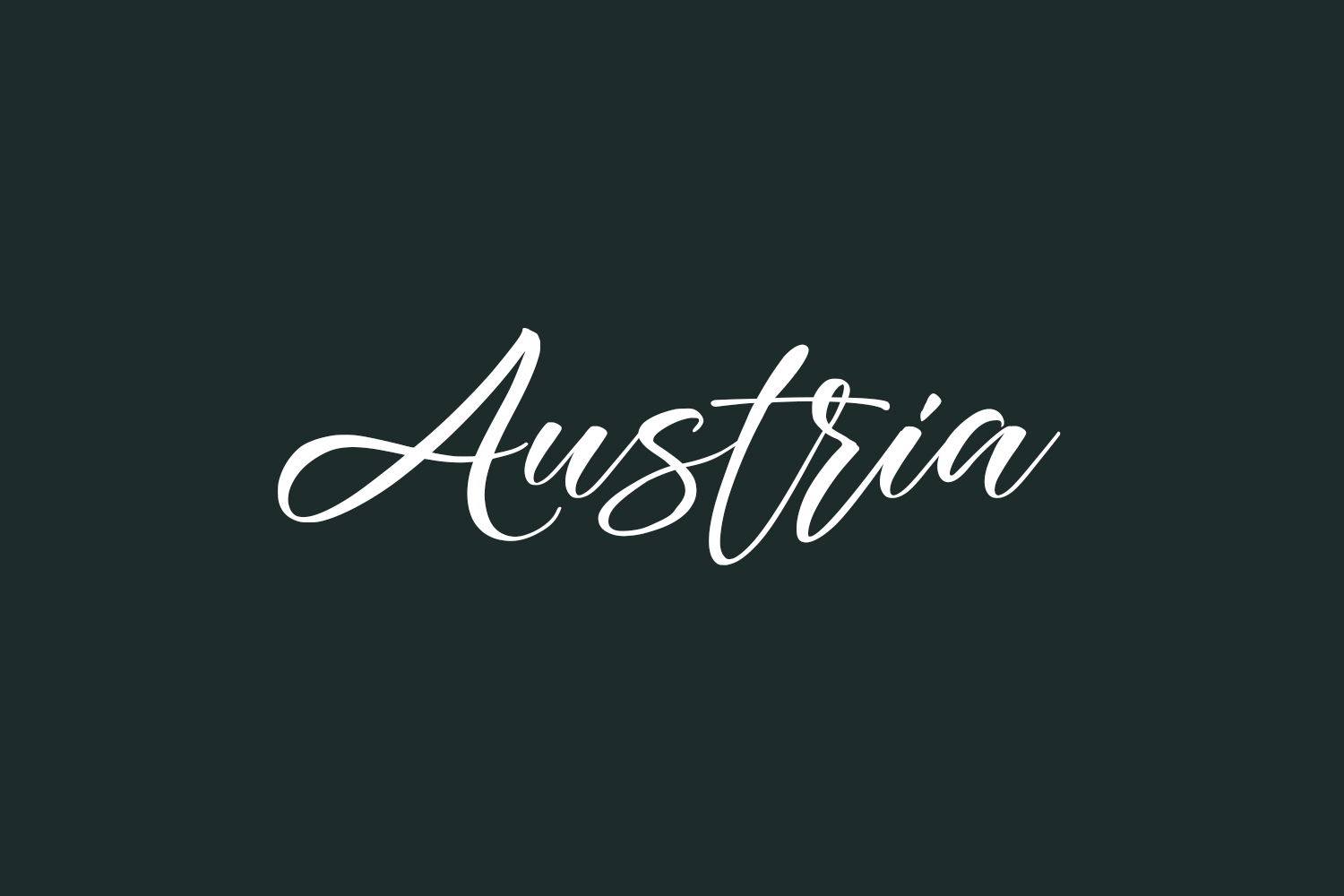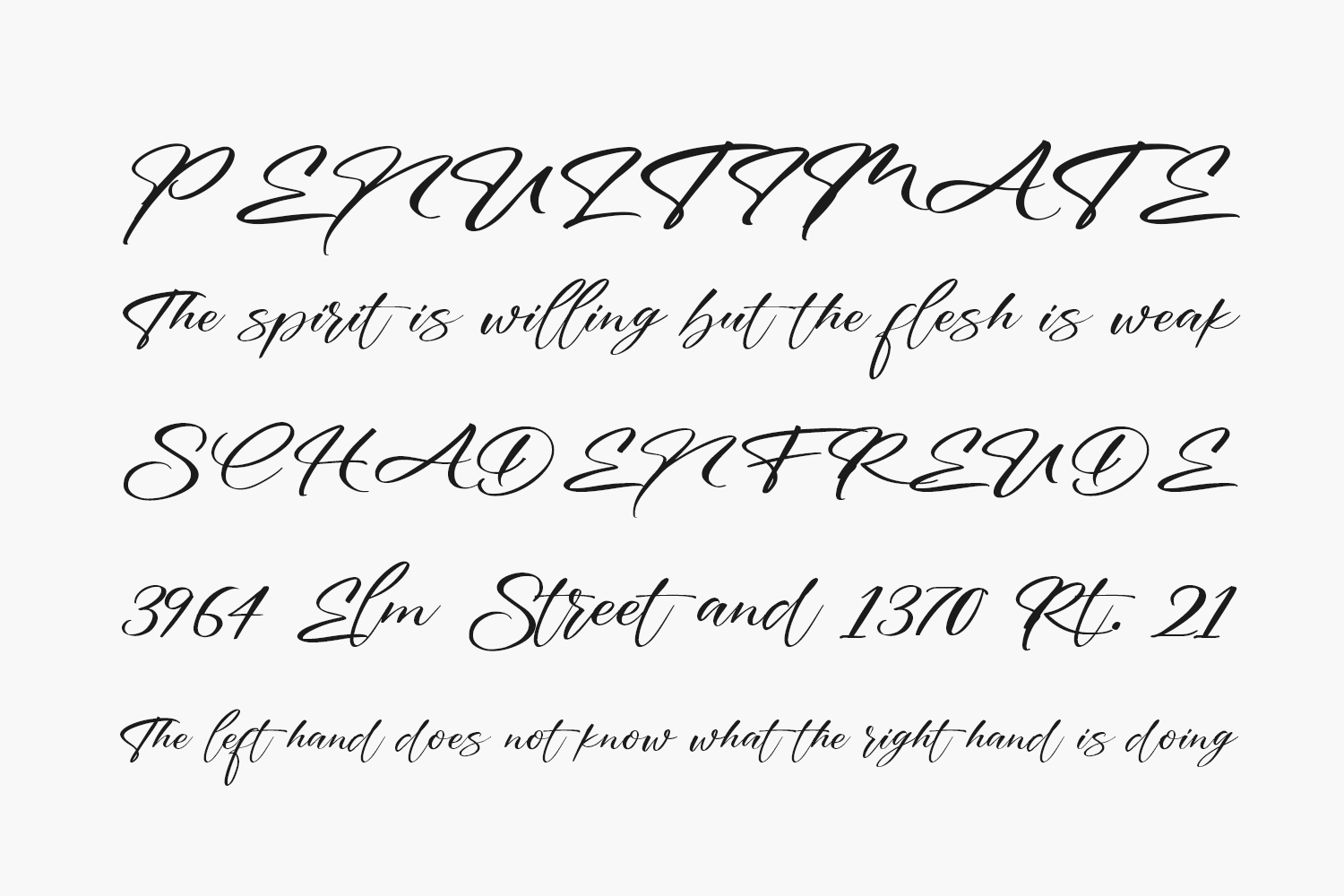
Austria Free Font is an elegant and flowing handwritten font. It maintains its classy calligraphic influences while feeling contemporary and fresh. Fall in love with Austria and bring your projects to the highest levels. Austria Free Font was designed by Debut Studio and is free for personal use only. Please purchase the full version for commercial use.